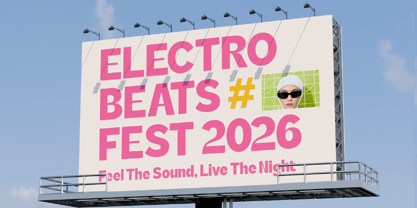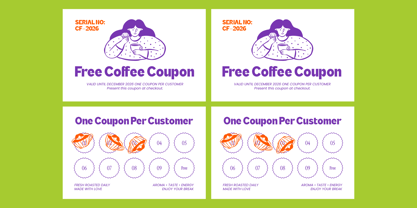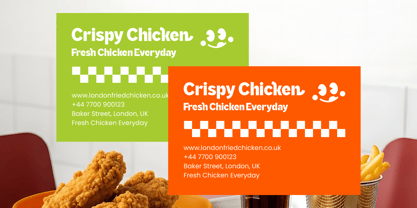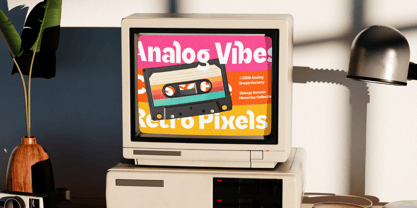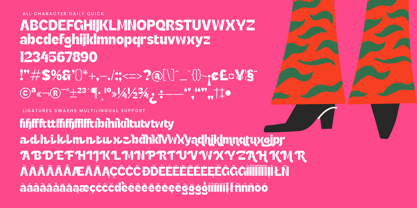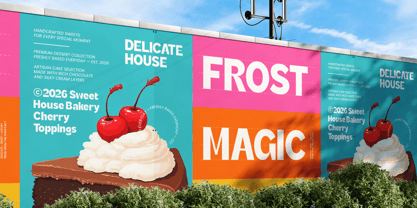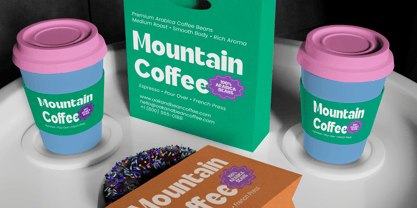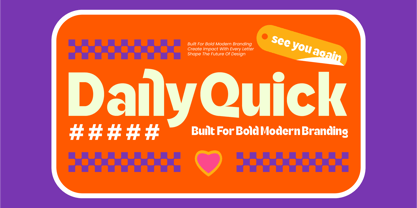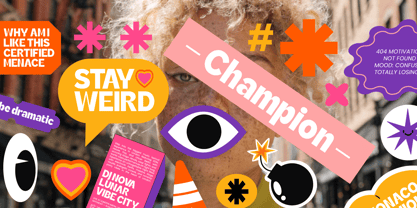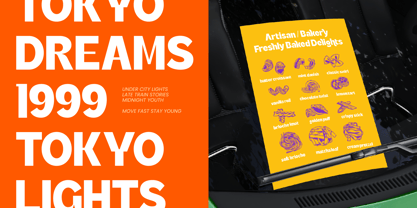
Daily Quick
A família de fontes Daily Quick foi desenhada por Heru Utama Putra e publicada pela Timelesstype Studio. Daily Quick contém 2 estilos e opções de pacote familiar. Saiba mais sobre esta família
Command attention with an unapologetically bold aesthetic that defines modern graphic standards. Daily Quick – Bold Geometric Sans Serif is a masterpiece of contemporary typography, blending geometric precision with a playful, high-energy spirit. Designed to dominate headlines and command visual hierarchy, this bold display typeface ensures your message is not just seen, but remembered through its clean architecture and striking presence.